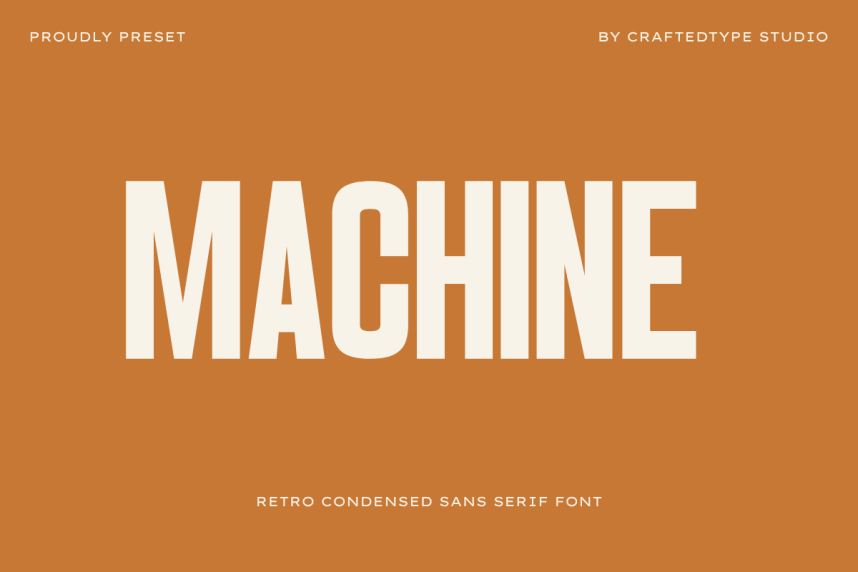
Machine Sans-Serif Font is a stylish retro‑inspired condensed sans‑serif typeface designed for creators who value clean aesthetics and strong visual impact.
Its tall, narrow letterforms with generous kerning make it highly expressive while saving space, making it ideal for T‑shirts, posters, mugs, and other print‑on‑demand products, as well as movie titles, branding, logos, and modern packaging.
Machine Sans-Serif Font